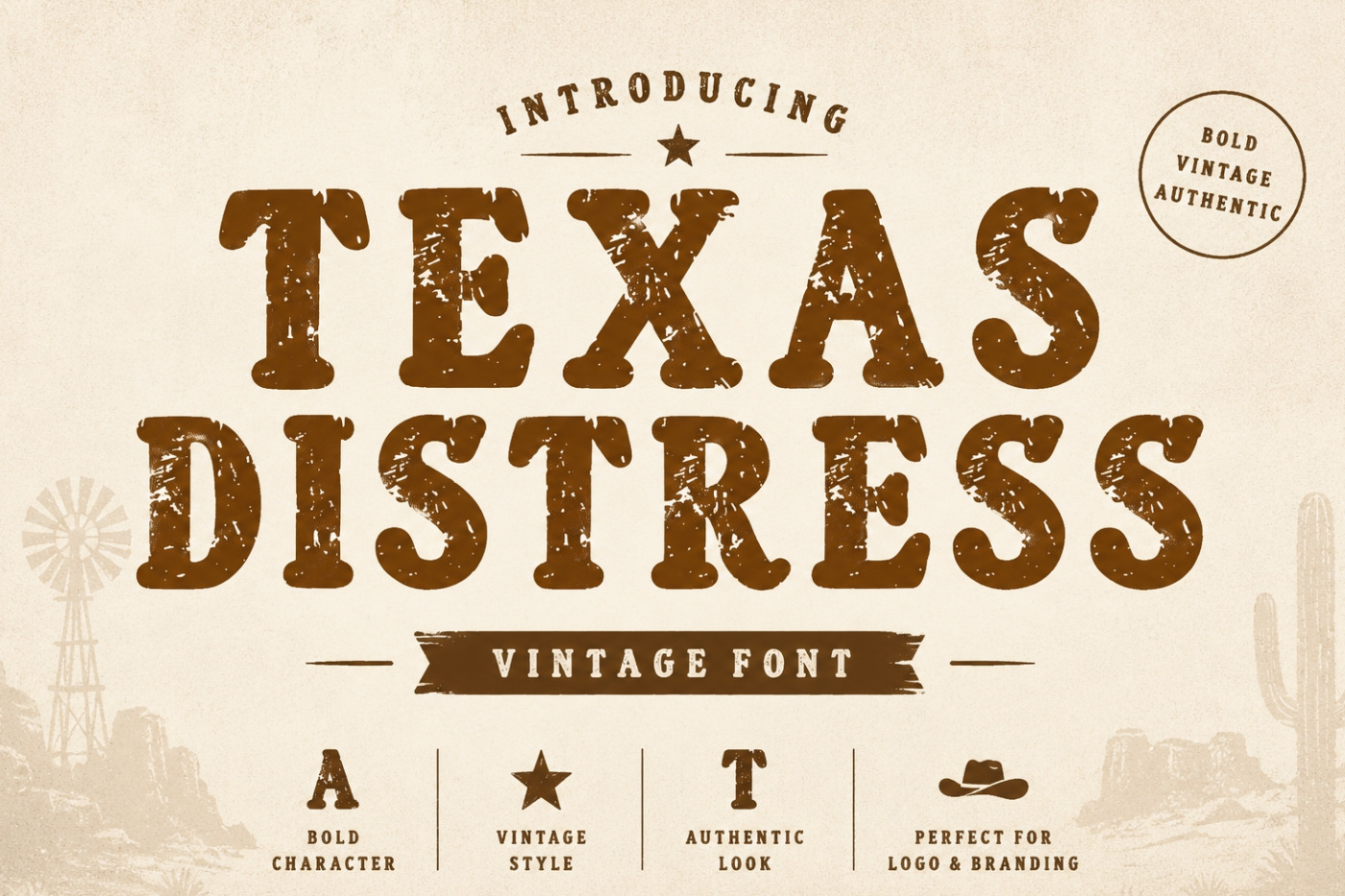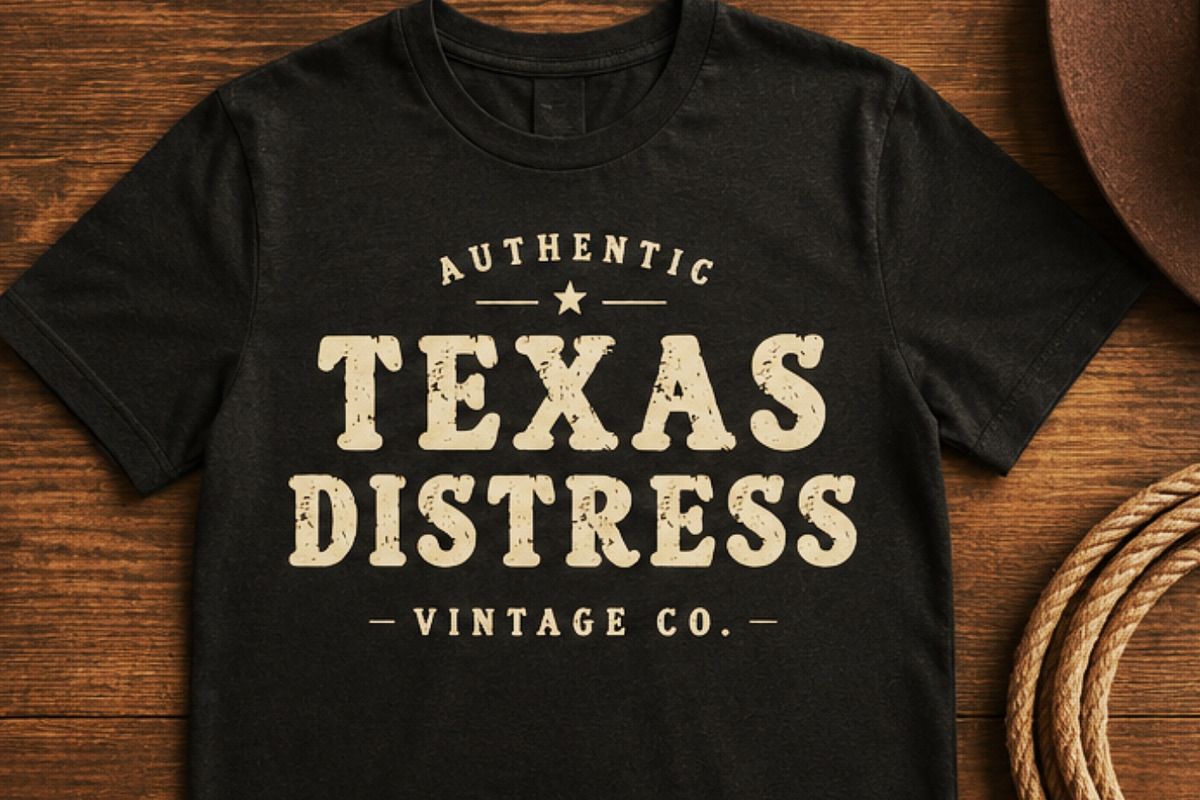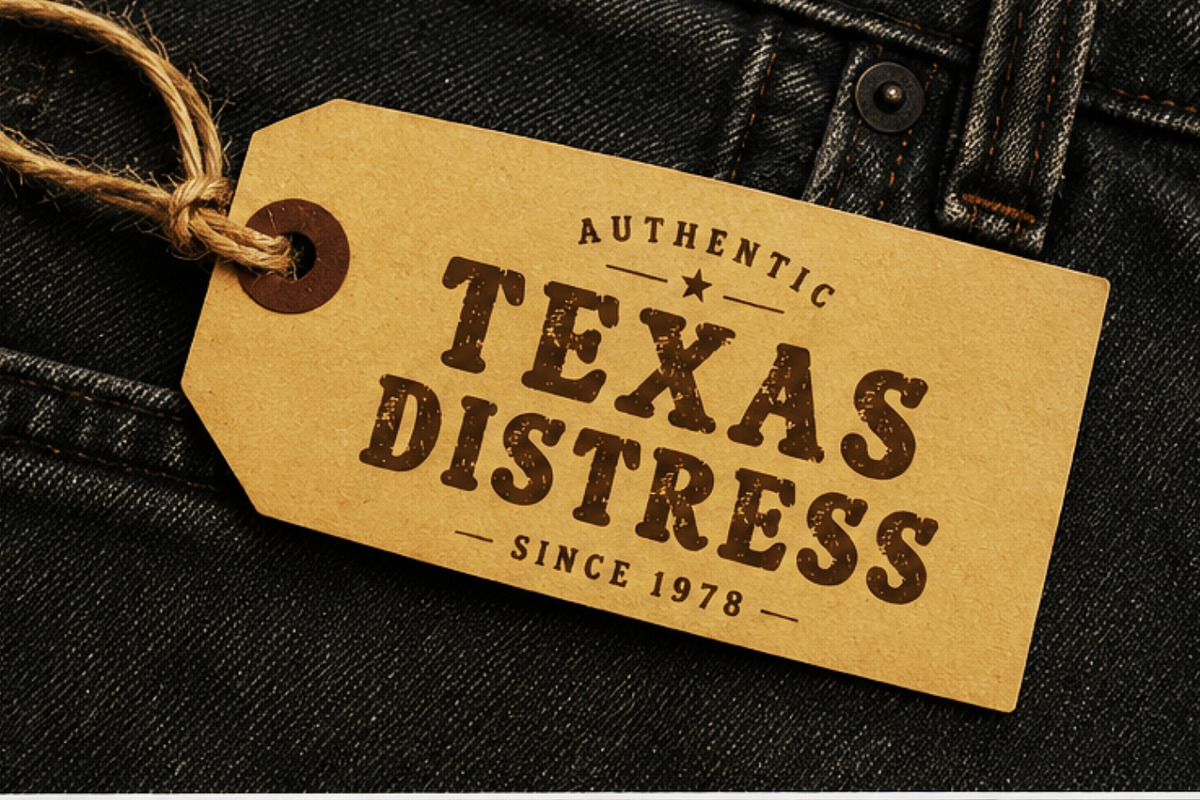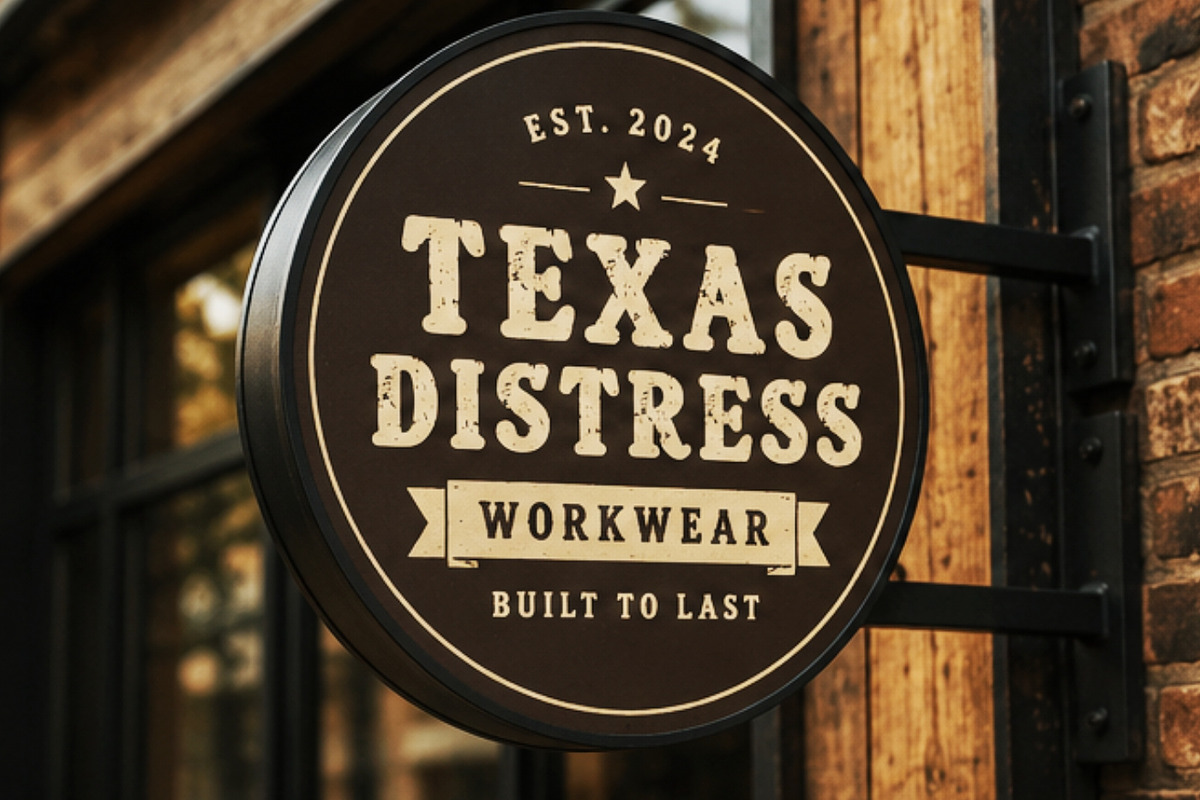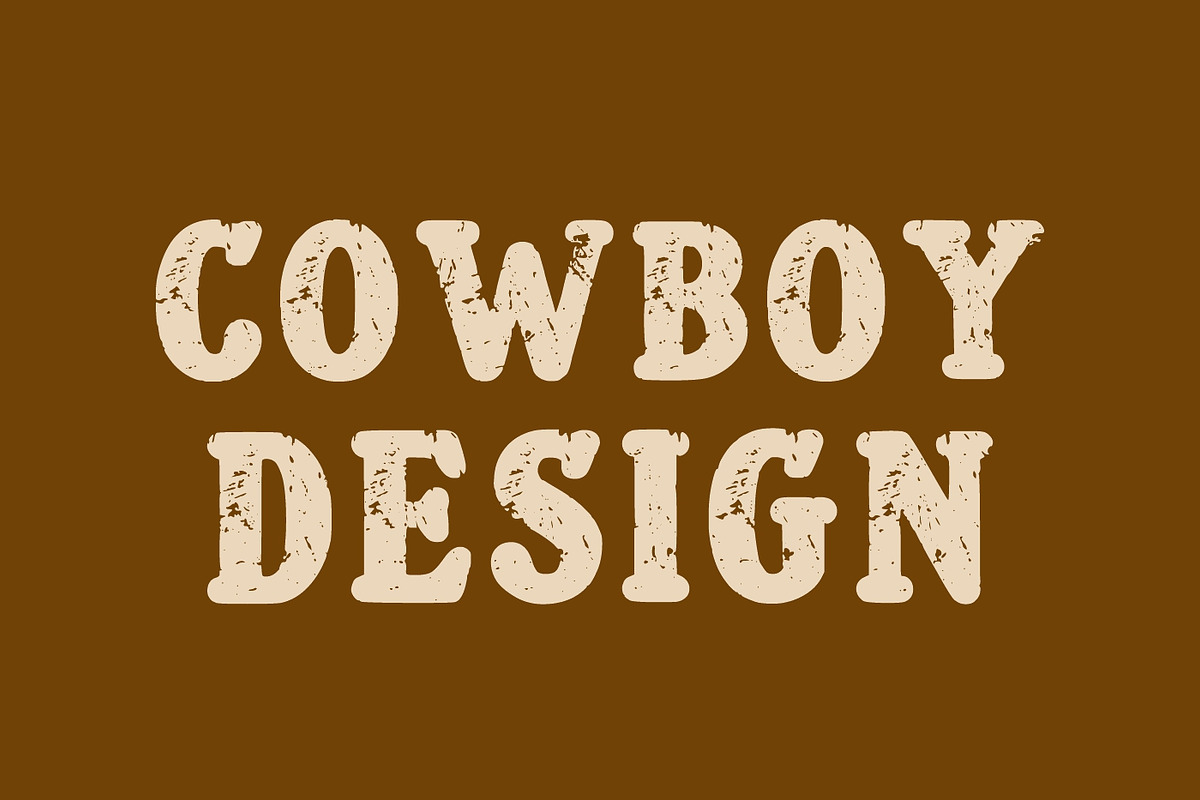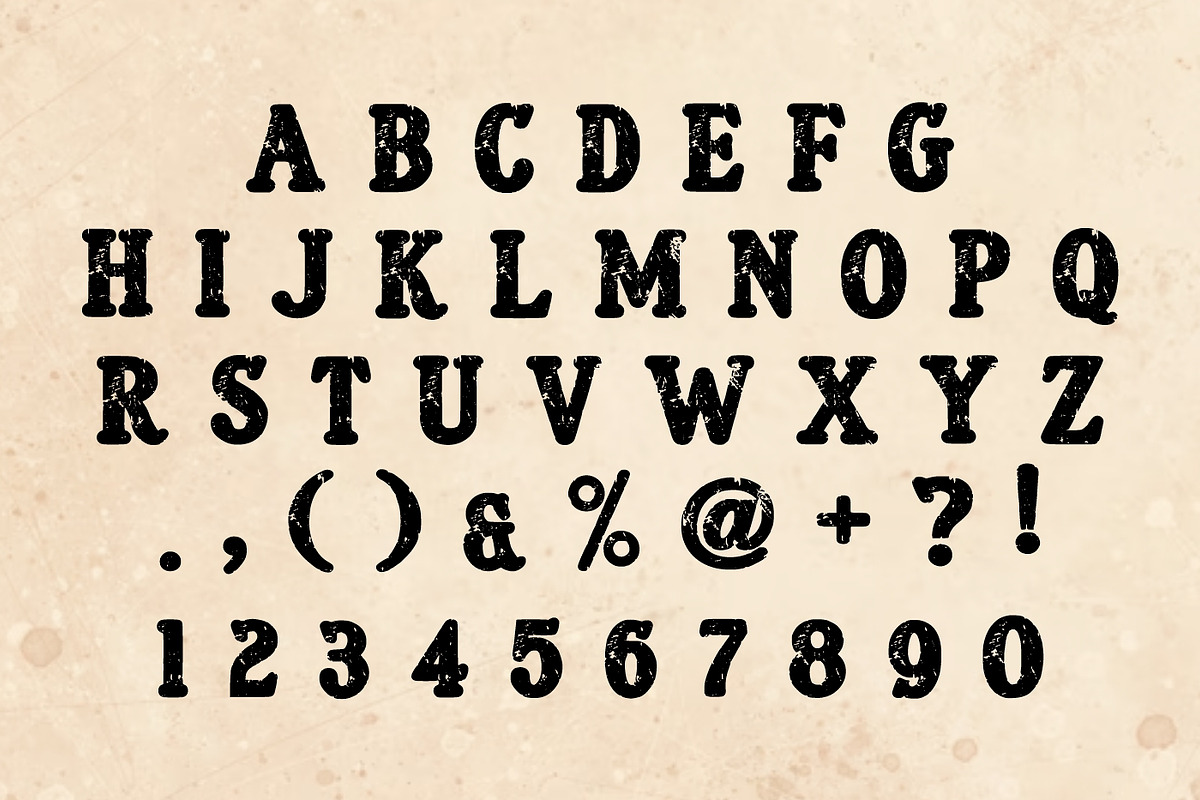
Texas Distress Vintage Font
Texas Distress is a bold vintage western font featuring authentic distressed textures and rugged cowboy-inspired letterforms. Designed to capture the spirit of the American frontier, this font blends rustic charm with strong visual impact, making it perfect for western branding, ranch logos, country music artwork, saloon signs, apparel designs, posters, packaging, and retro-themed projects. Its weathered appearance delivers a genuine handcrafted feel that adds character, nostalgia, and timeless western authenticity to any creative work.